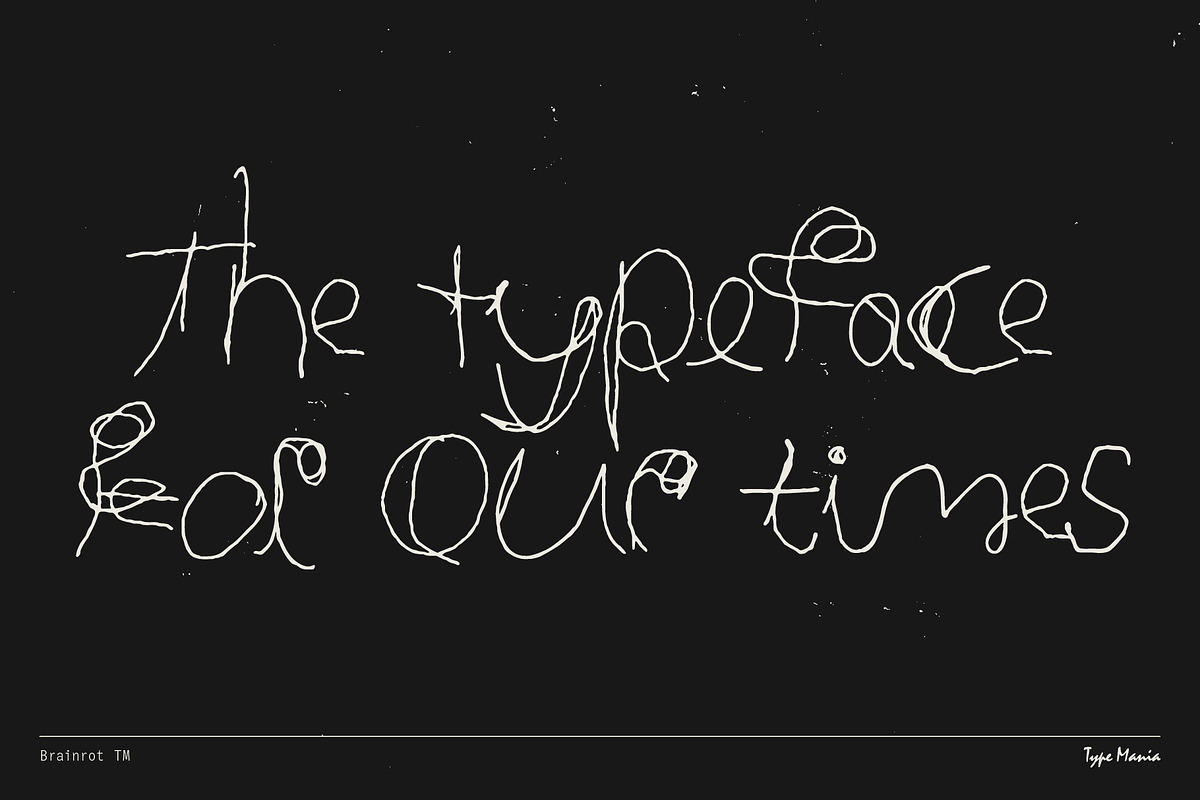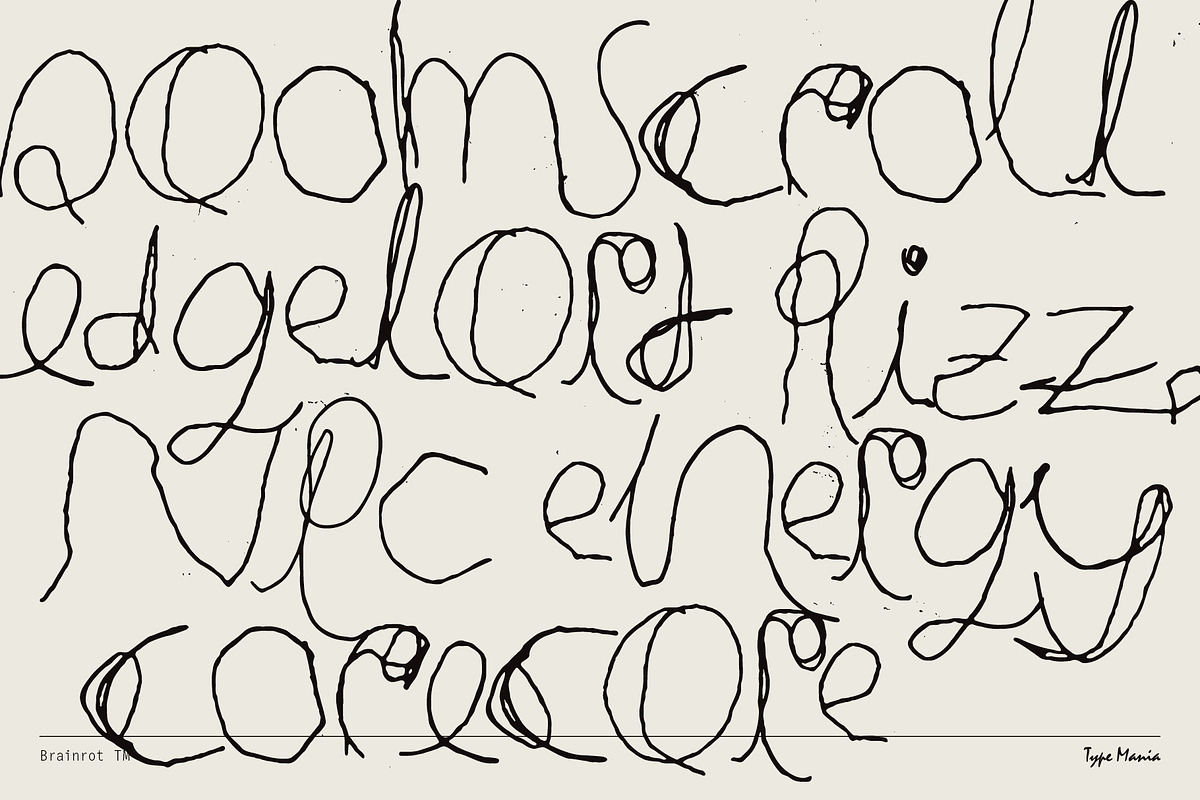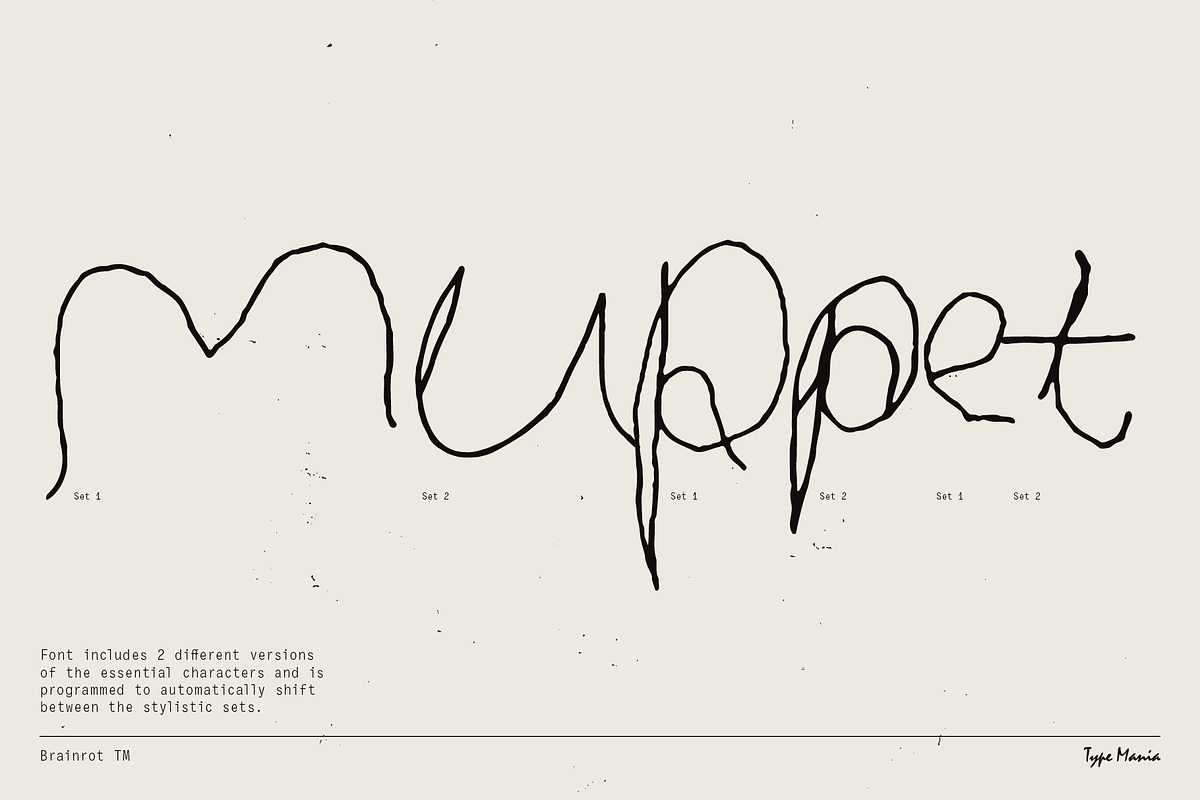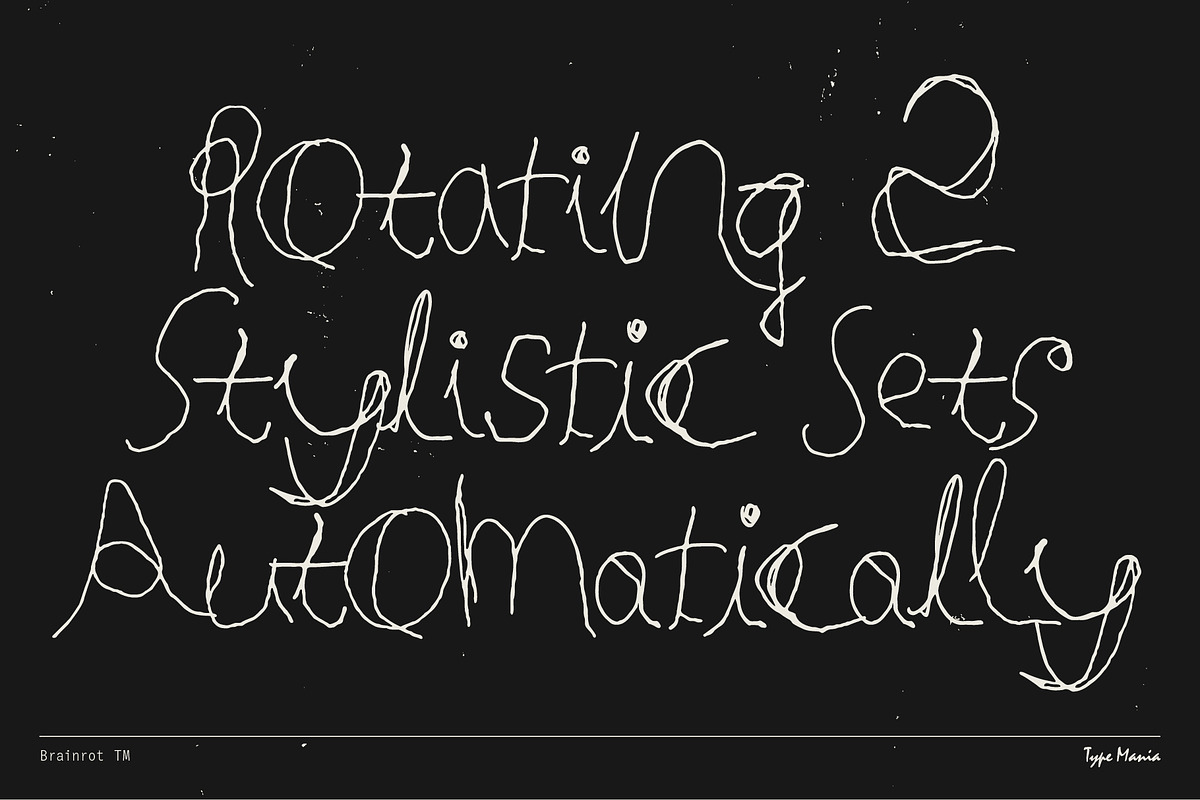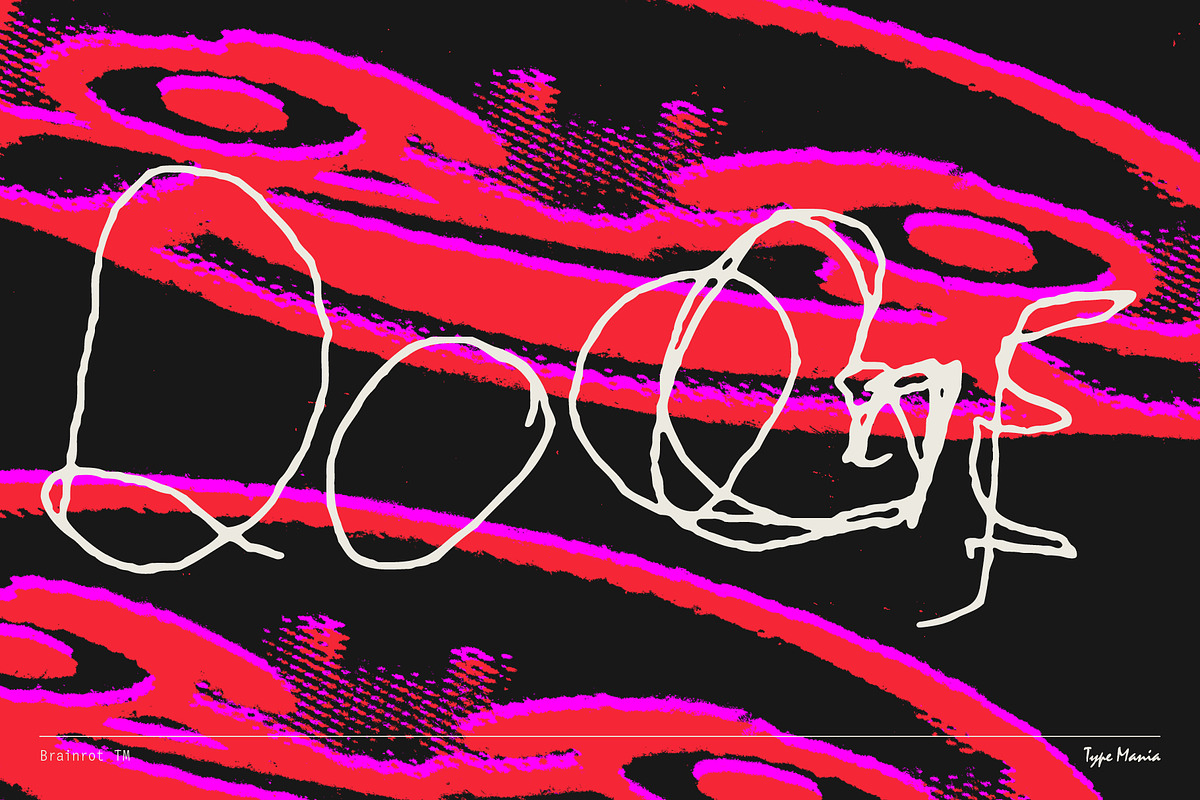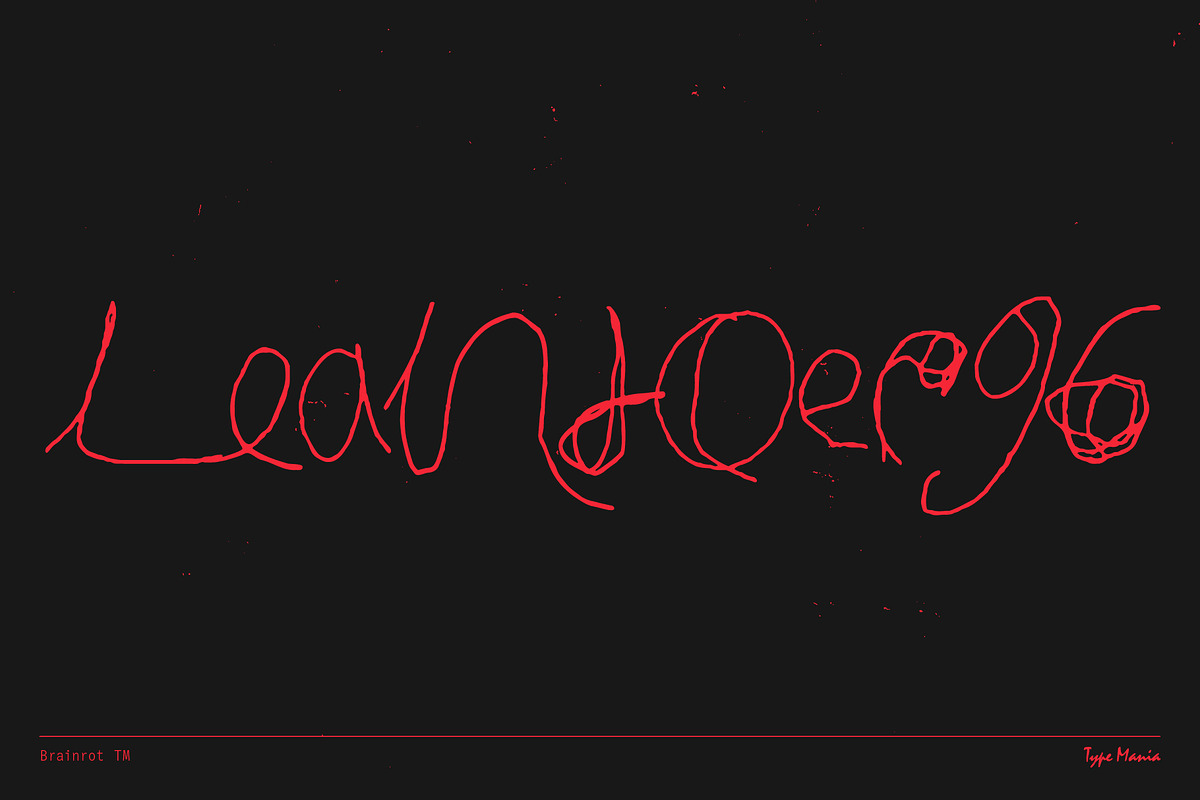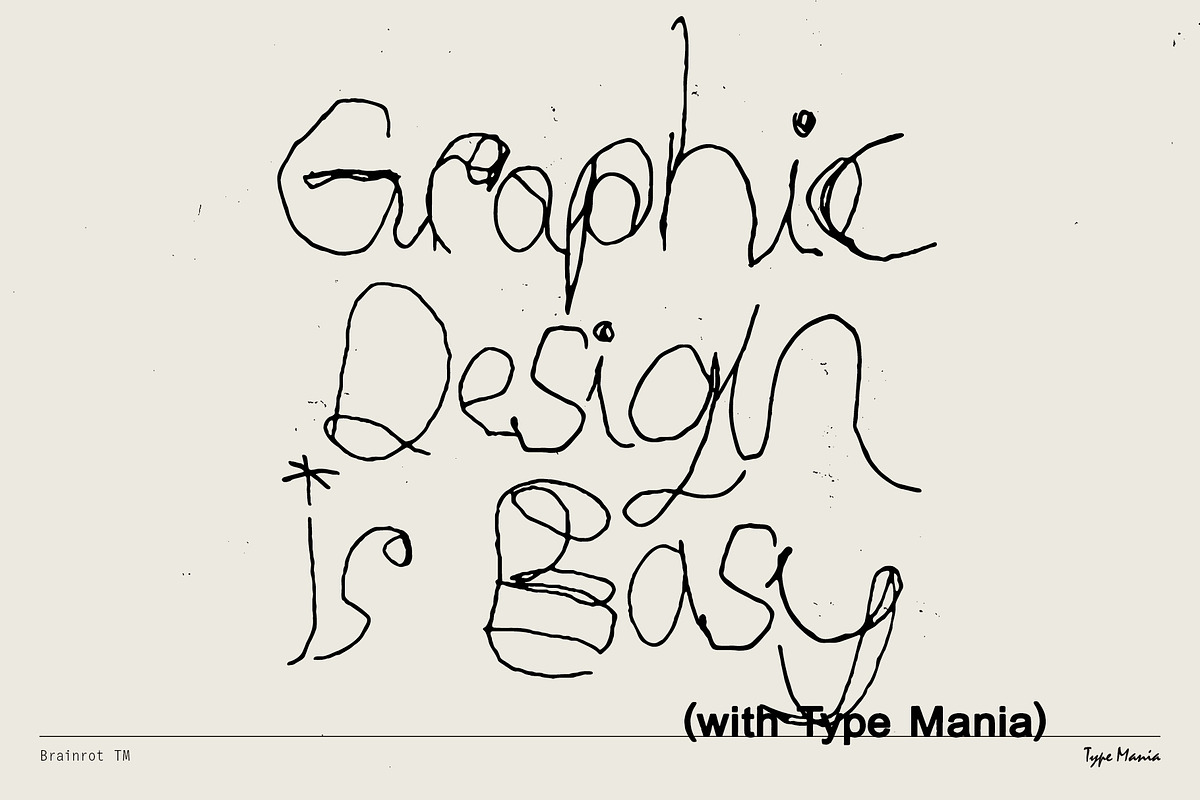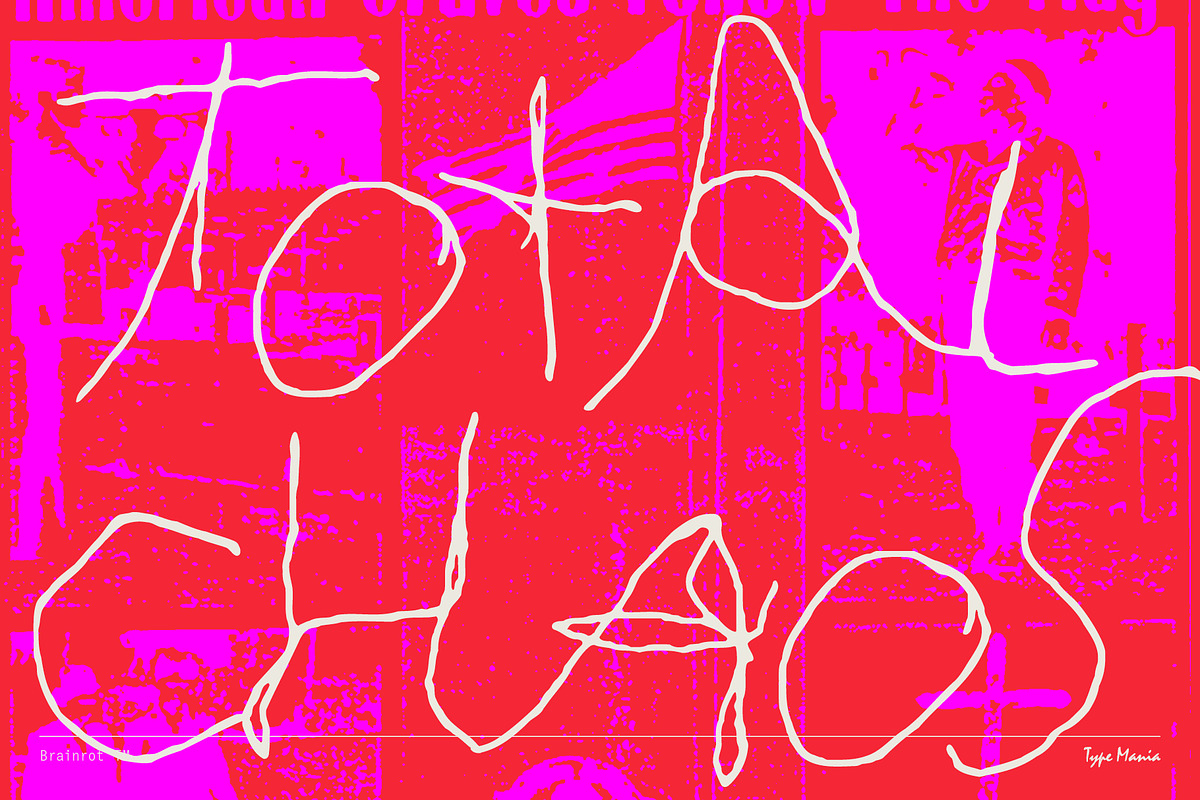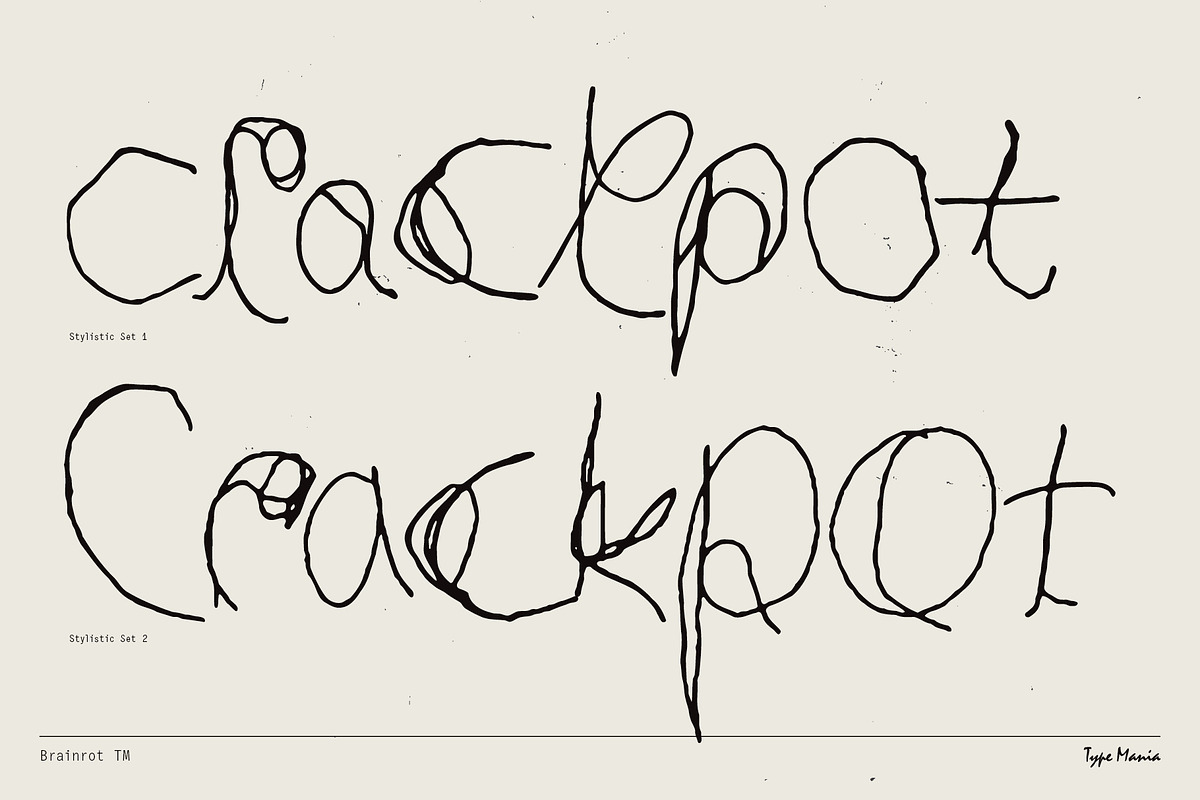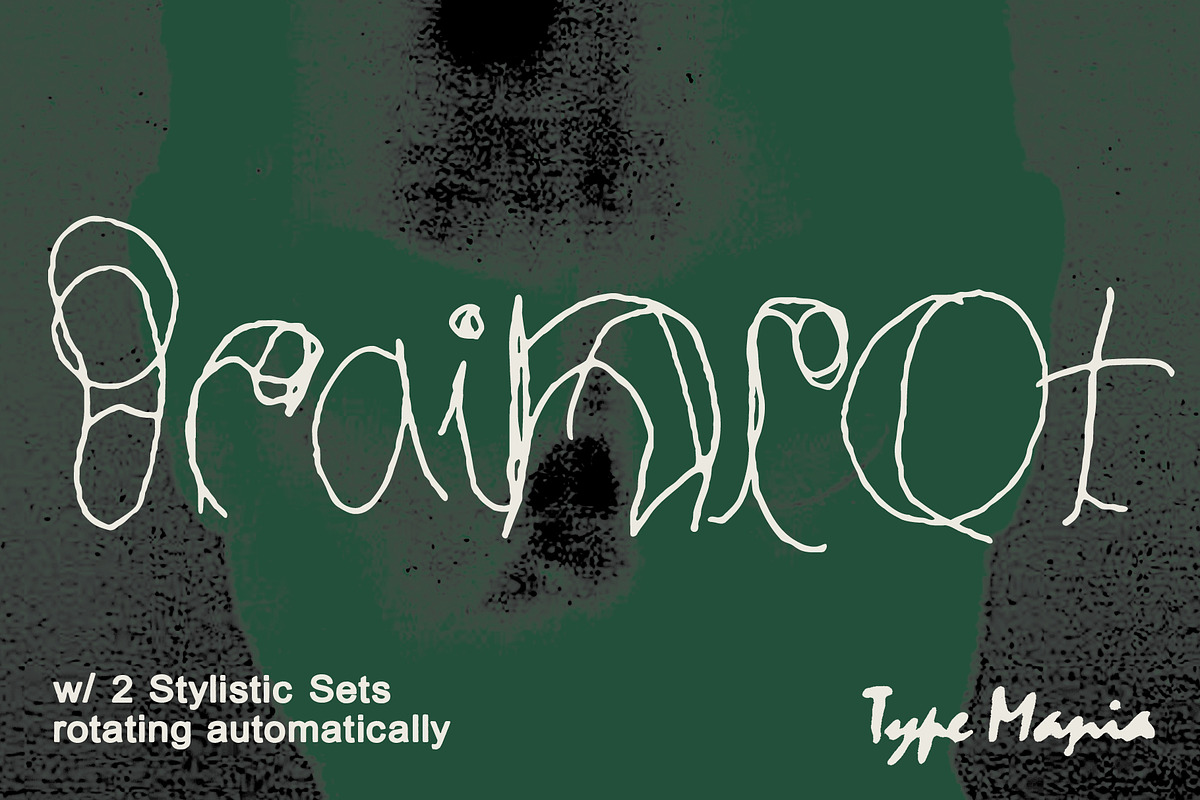
Brainrot TM โ Raw Scribble
For bad moods and good designs ๐ Brainrot TM โ the meltdown esthete's choice ๐ ๐
OpenType features
- 2 stylistic sets
- The font is programmed to automatically shift between the stylistic sets